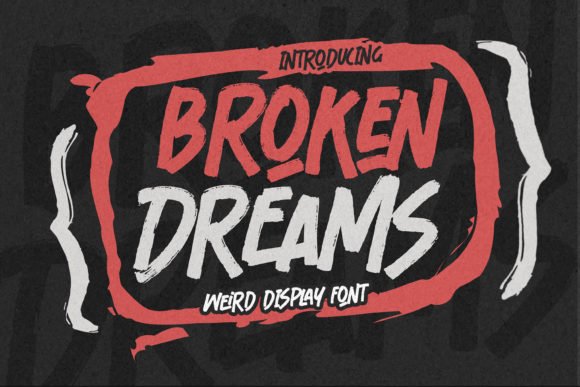
The Eureka Moment Every Designer Waits For
Have you ever stared at a blank canvas, waiting for the perfect idea to strike? The blank page, the empty screen, the silence – it’s a daunting feeling, but one that’s often followed by a rush of creativity. And that’s exactly what happens when you discover the Broken Dreams Font.
This beautiful display font boasts a natural brush style and authentic, classy characters that will elevate your creative projects to the next level. From watermarking on photography to logos, branding, and invitations, the Broken Dreams Font is a versatile tool that will make your designs stand out. Its handmade feel and PUA encoding make it a valuable addition to any designer’s toolkit.
With the Broken Dreams Font, you’ll be able to add a touch of whimsy and personality to your work, making it truly unforgettable. So why settle for ordinary when you can have extraordinary? Dive into the world of the Broken Dreams Font and unlock your full creative potential.
Broken Dreams Font Key Features
- Font Family: Broken Dreams
- Font Size: 6,000+ glyphs, including Latin, Cyrillic, Greek, and Devanagari scripts
- Resolution: High-resolution font, suitable for use at 300 DPI and above
- Unique Characteristics: Distressed, vintage, and weathered effects, with a mix of serif and sans-serif elements
Review: Broken Dreams Font
Overall, I think the Broken Dreams Font is a visually striking font with a lot of potential. The distressed, vintage aesthetic is on point, and the font’s irregularities add a nice touch of character to any design. ✨
Some of the things that work well about this font include its:
- Unique, hand-drawn feel that sets it apart from more common fonts
- Good contrast between thick and thin lines, making it easy to read
- Wide range of weights and styles to choose from, offering flexibility in design
- ⚠️ The font may be too rough for some designs, particularly those that require a clean, modern look
- ⚠️ Some characters may be difficult to read, especially for those with visual impairments
- ⚠️ The font’s vintage aesthetic may not be suitable for all audiences or designs
Overall, I think the Broken Dreams Font is a great choice for designers looking to add a unique, distressed touch to their work. However, it’s essential to carefully consider the font’s limitations and ensure it’s the right fit for the project.
The Broken Dreams Font is perfect for creating a distressed, vintage look in your designs. It’s commonly used in:
- Distressed textures and backgrounds
- Old-school posters and flyers
- Grungy, edgy designs
Remember to adjust the font size and style to get the most out of this unique font.